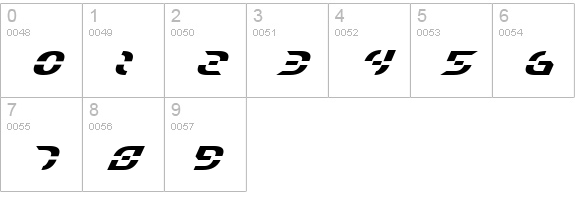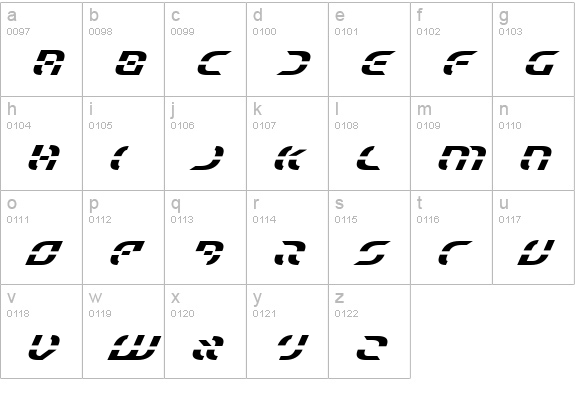
Starfighter Italic is a distinctive, italic variant in the Starfighter typeface family \xE2\x80\x94 well suited to design and typography projects.
Starfighter Italic font is a sleek and modern typeface that exudes elegance and sophistication. With its sleek lines and stylish curves, this font is perfect for adding a touch of class to any design project. The italicized style of Starfighter adds a dynamic and dynamic flair to your text, making it stand out from the crowd. The best part about Starfighter Italic font is that it is completely free to download at FontsMarket.com. This means you can easily access this stunning typeface without any cost, making it a valuable addition to your font collection. Whether you're working on a branding project, a website design, or any other creative endeavor, Starfighter Italic font is sure to elevate your work to the next level. Don't miss out on the opportunity to enhance your designs with the stylish and sophisticated Starfighter Italic font. Download it for free today at FontsMarket.com and start creating eye-catching visuals that leave a lasting impression.